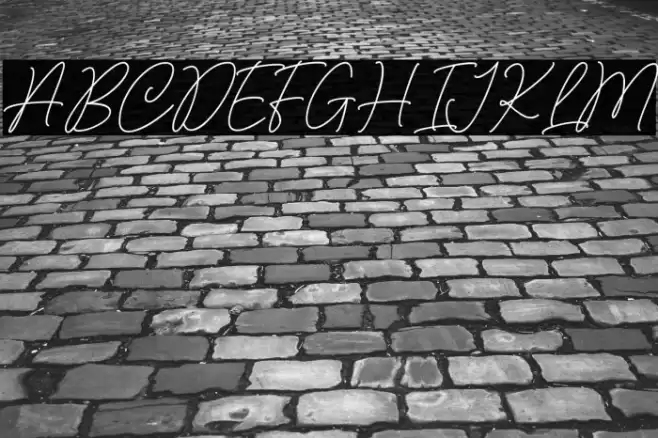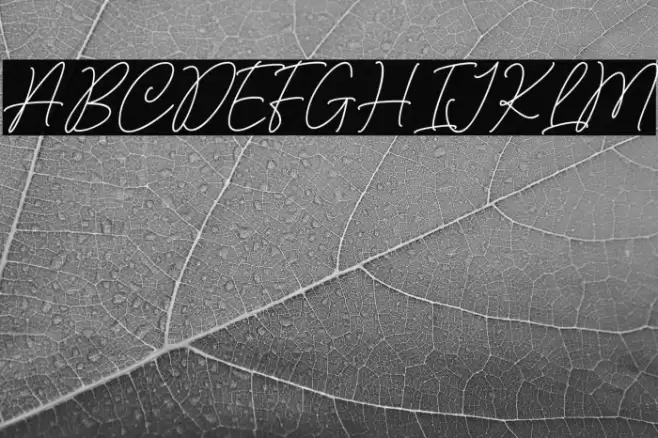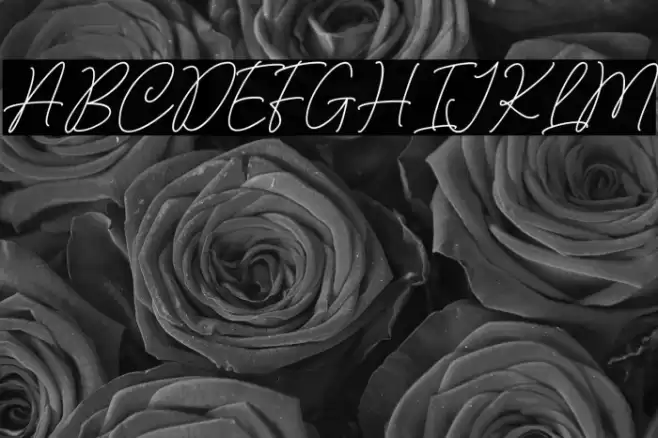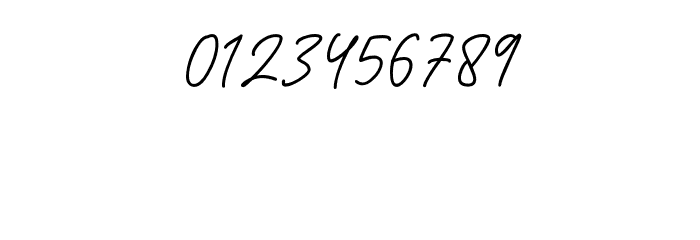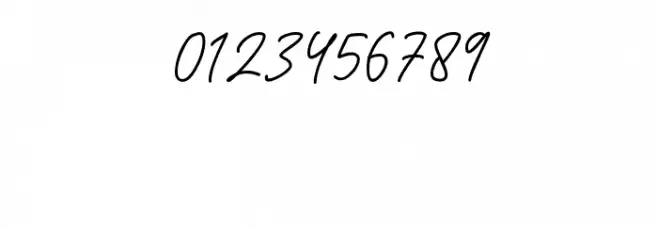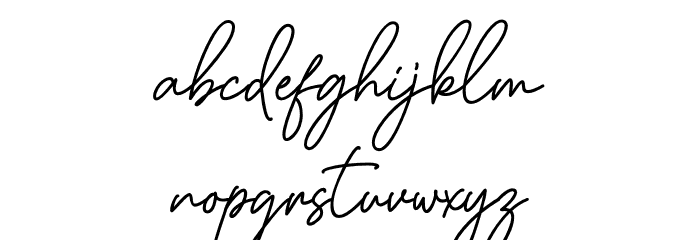
Claudiana Font
Claudiana Description
This elegant script font exudes a sense of sophistication and fluidity, characterized by its graceful, flowing lines and delicate curves. The uppercase letters are tall and slender, with a slight slant that adds a dynamic feel to the text. The lowercase letters maintain a consistent style, with smooth connections between characters that enhance readability while preserving the font's artistic flair. The numerals are designed with the same attention to detail, ensuring a cohesive look across all characters. This font's overall appearance is both refined and approachable, making it suitable for a variety of creative applications.
An elegant and flowing script font with graceful, connected characters from Uncategorized fonts.
- Font: Claudiana
- Proposed Projects: Ideal for wedding invitations, elegant branding, personal stationery, and artistic projects.
- Overall Style: Elegant
- Use Case: Logos, Invitations, Personal stationery